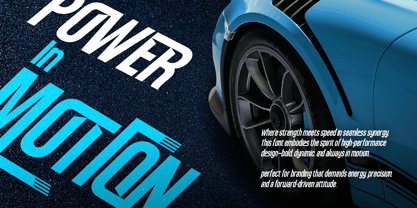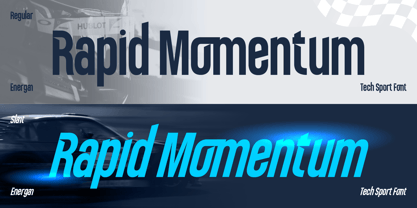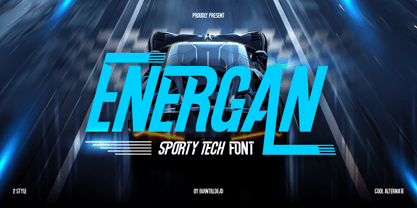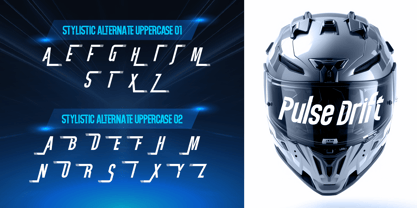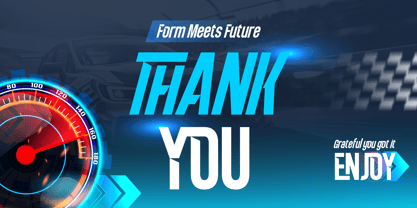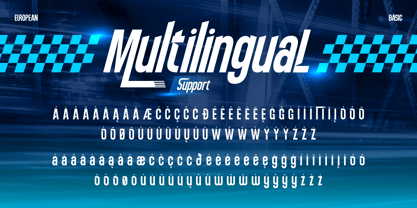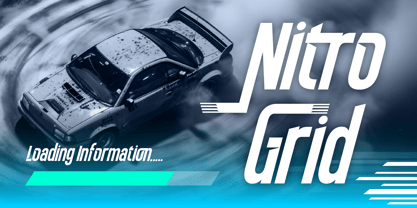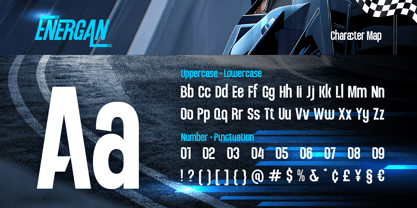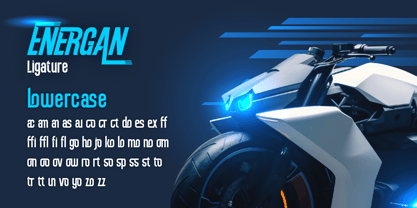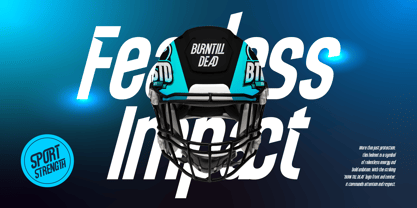
Energan
by Burntilldead
The Energan Font Family was designed by Eric Kurniawan and published by Burntilldead. Energan contains 2 styles and family package options. More about this family
Introducing Energan, a condensed sporty tech font. Energan is a display typeface inspired by speed, precision, and futuristic energy. In today's world, technology moves as fast as a race car—and this font was designed to reflect that spirit. With sharp cuts and dynamic shapes, Energan brings out a sense of motion, power, and high performance.
This condensed sans serif was created to give your design a strong, fast, and professional vibe. Whether you're working on a motorsport logo, automotive headline, racing flyer, gaming event poster, tech branding, or YouTube thumbnail, Energan delivers the adrenaline rush your visuals need.
Bring high-speed energy to your next creative project with Energan—the ultimate choice for sporty and racing-inspired designs.
Features:
• Uppercase & Lowercase
• Number
• Punctuation
• Alternates
• Ligatures
• Multilingual
Designers: Eric Kurniawan
Foundry: Burntilldead